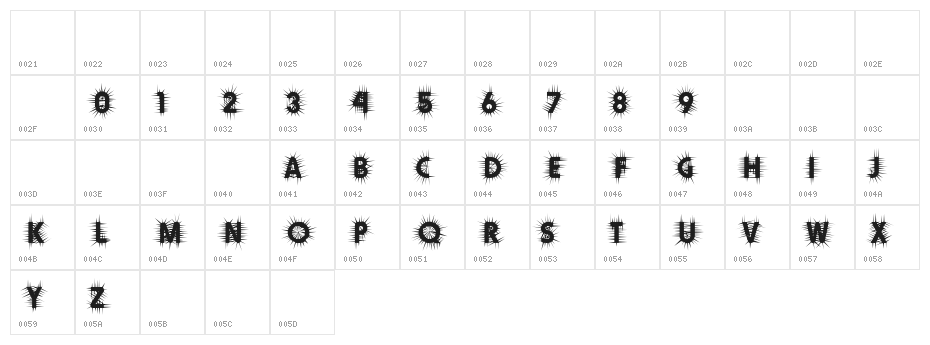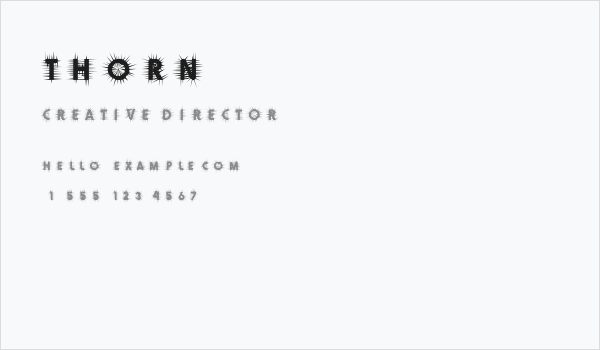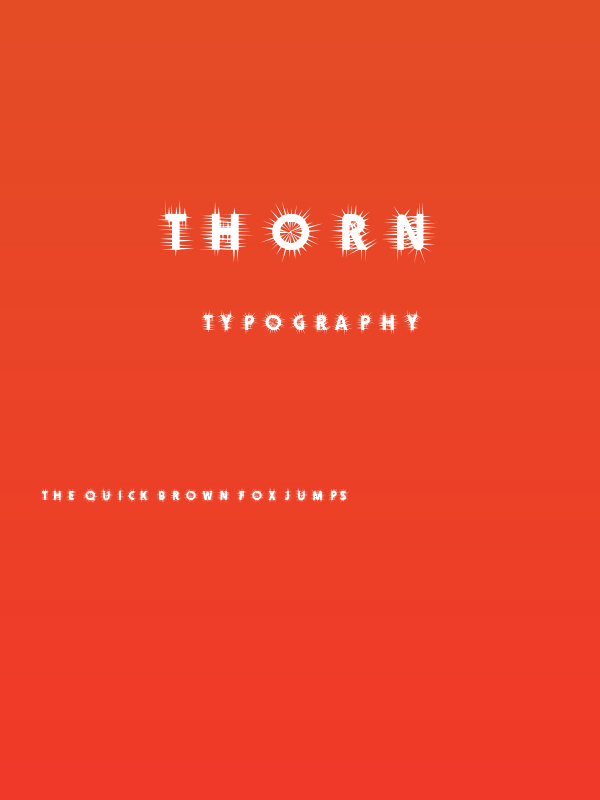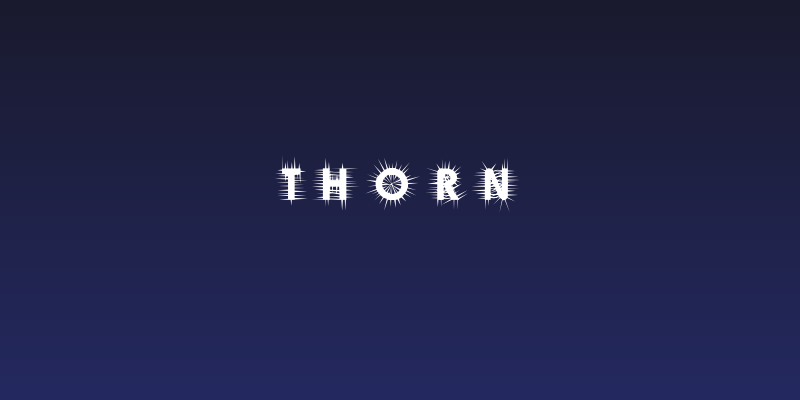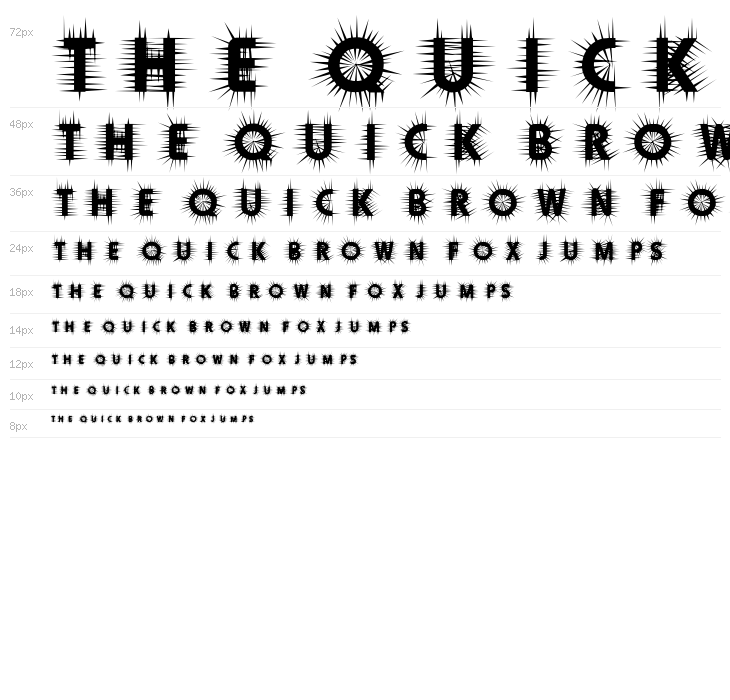
Thorn Font
Thorn Description
This font features a unique and edgy design with each character surrounded by sharp, thorn-like spikes. The bold, uppercase letters are crafted with a strong presence, making them stand out dramatically. The font's distinct style is reminiscent of gothic or punk aesthetics, with a modern twist. The characters are evenly spaced, ensuring readability despite their intricate design. This font is perfect for projects that require a bold statement or a touch of rebellious flair.
| Overall Style | Modern, Gothic, Punk |
| Proposed Projects | Ideal for album covers, posters, event flyers, and branding that requires a bold, edgy look. |